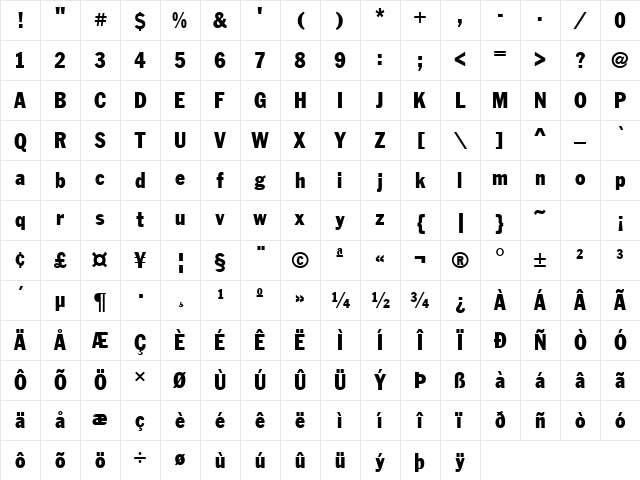
Complete Franklin Cond. Gothic Regular glyph index. Displaying only characters natively supported by Franklin Cond. Gothic Regular font.
Franklin Cond. Gothic takes a clean, functional approach - its unadorned letterforms prioritise legibility and work reliably across screen and print environments. Its narrow stance lets it pack a punch even in space-constrained designs.
Font Pairing: Works well alongside a characterful serif or display font that can carry the expressive load while Franklin Cond. Gothic handles the functional copy.
Pro Tip: Use Franklin Cond. Gothic tightly set in headlines and banners - its condensed proportions make it ideal for maximum impact in minimum horizontal space.